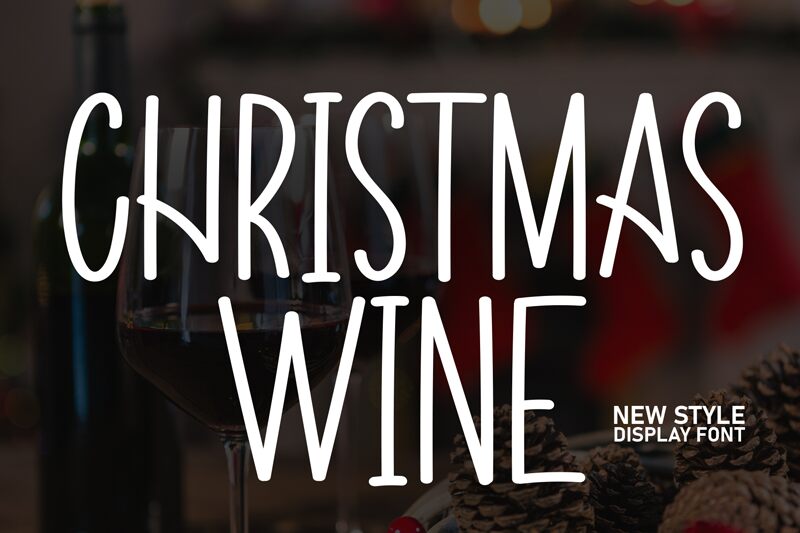
Christmas Wine font
Christmas Wine
This is a sweet and friendly handwritten display font. Cute and fun, this font is ideal for writing wedding invitations, cards, or any other design that needs a playful touch!